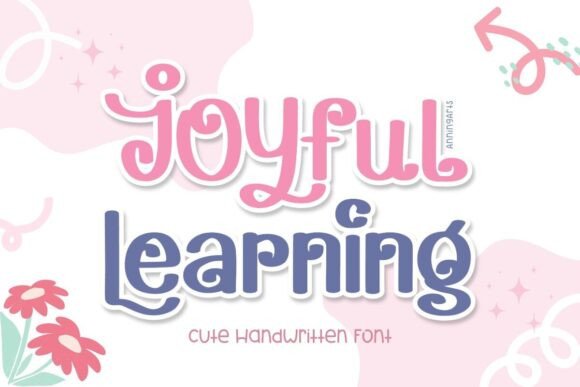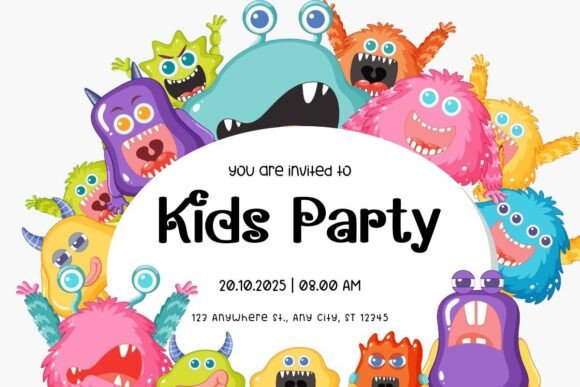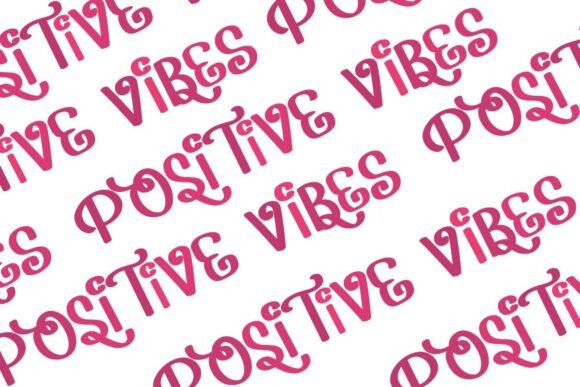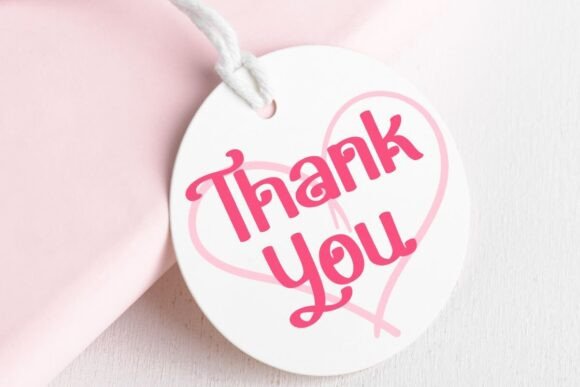
Joyful Learning Font
Joyful Learning is a cute and playful handwritten font that combines fun and smooth design elements. With its rounded strokes and friendly character, this font is perfect for projects that need a cheerful and inviting touch, such as invitations, educational materials, product packaging, and social media graphics. It includes uppercase and lowercase letters, special characters, alternates, and multilingual support letters to add creative variety to your designs.